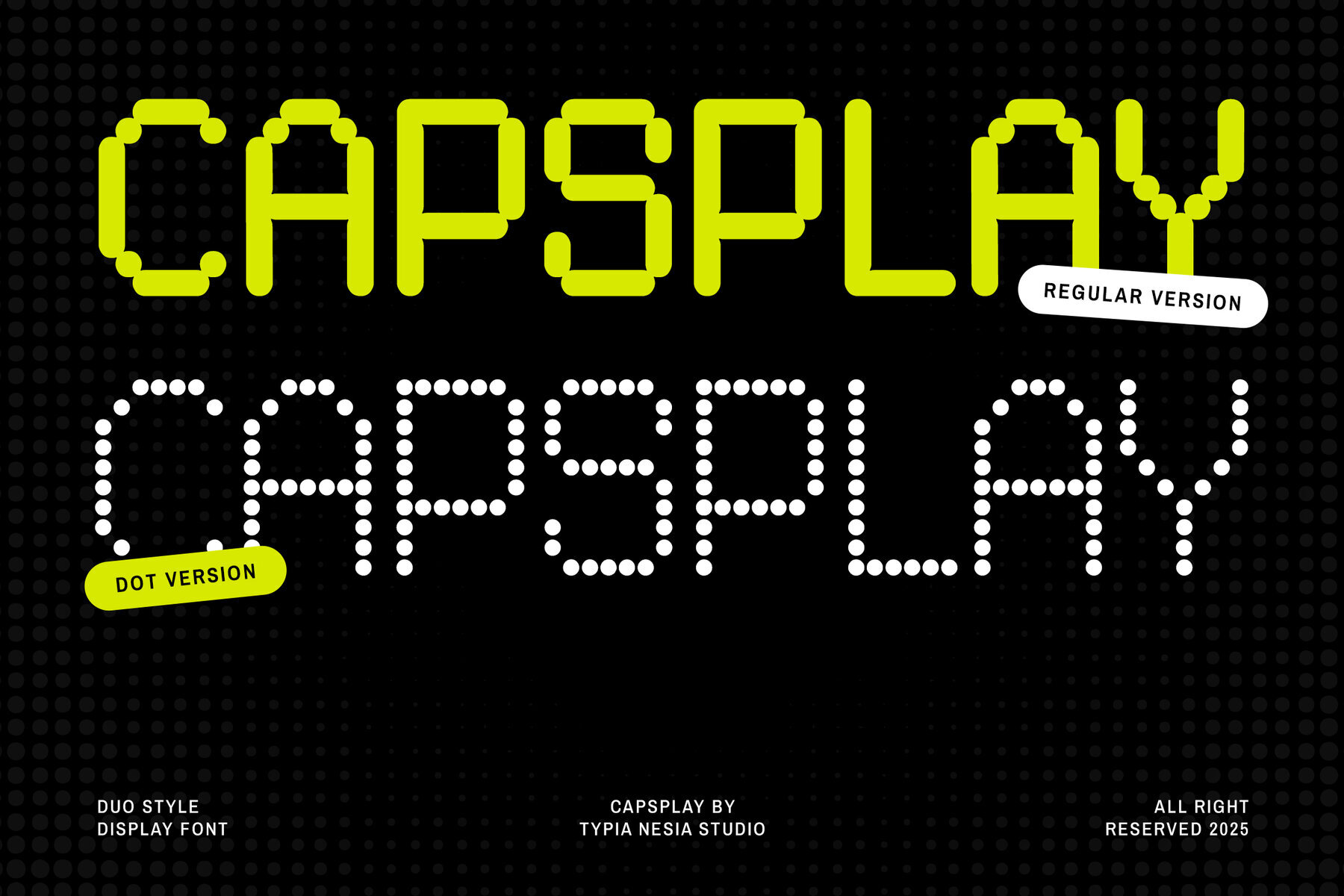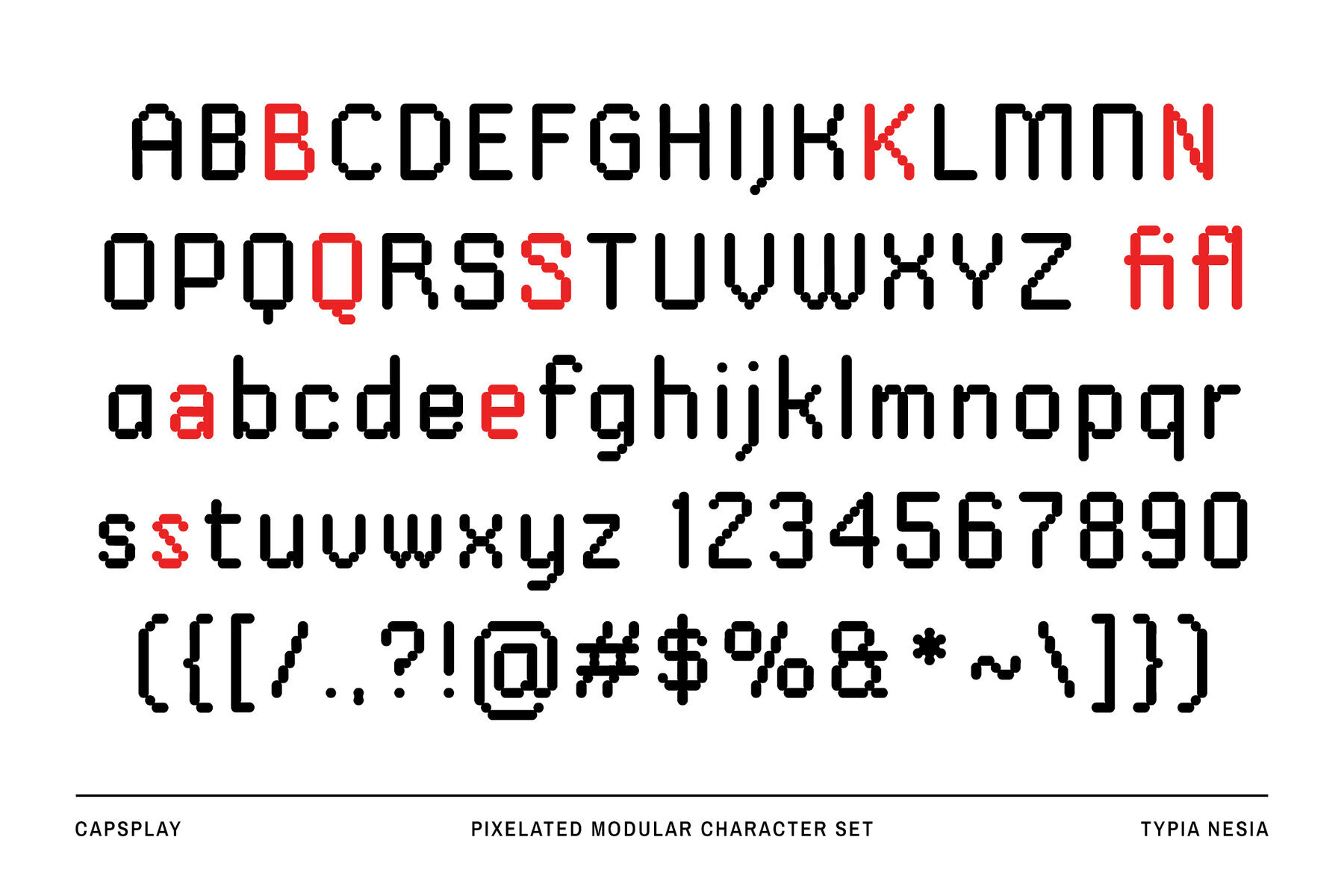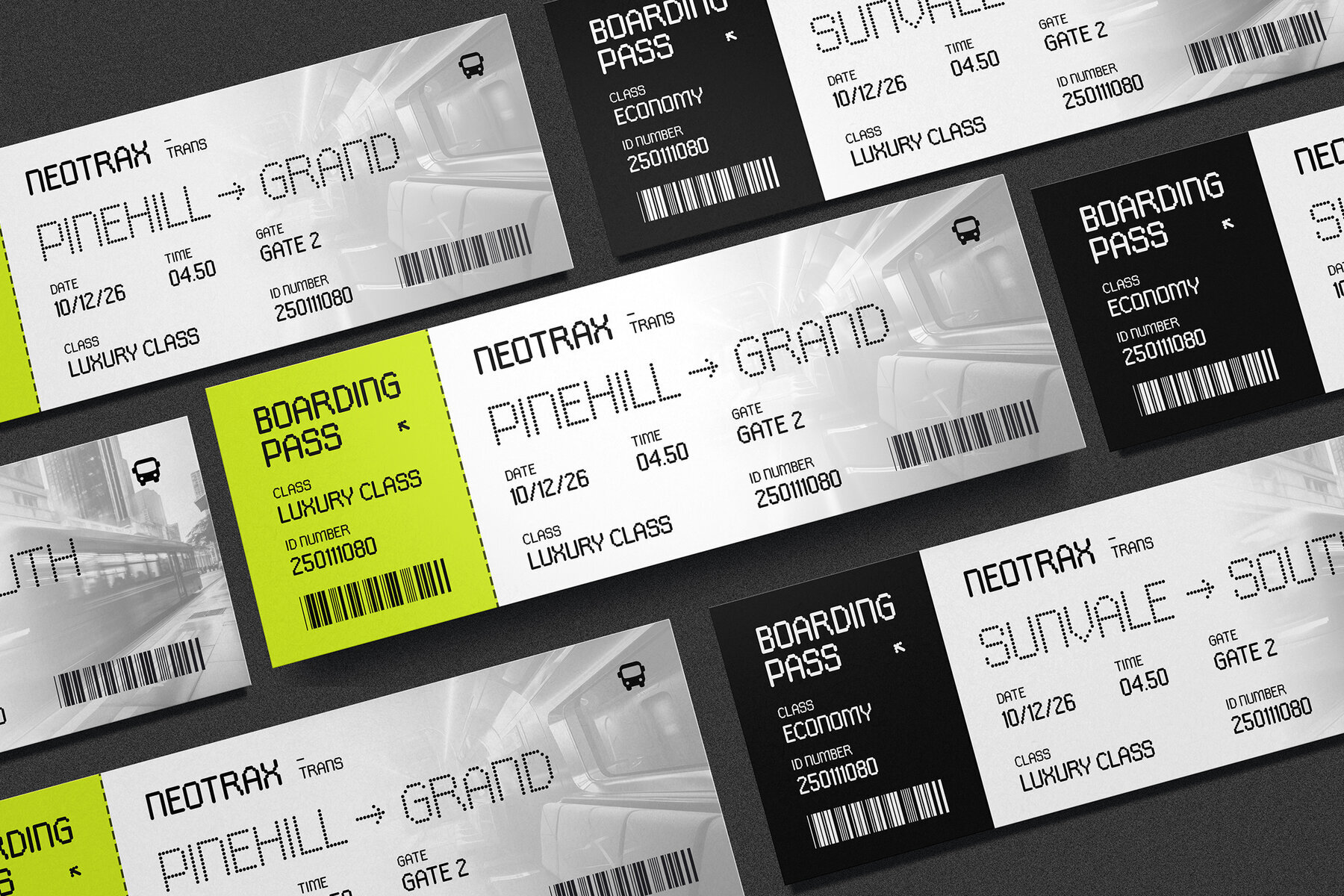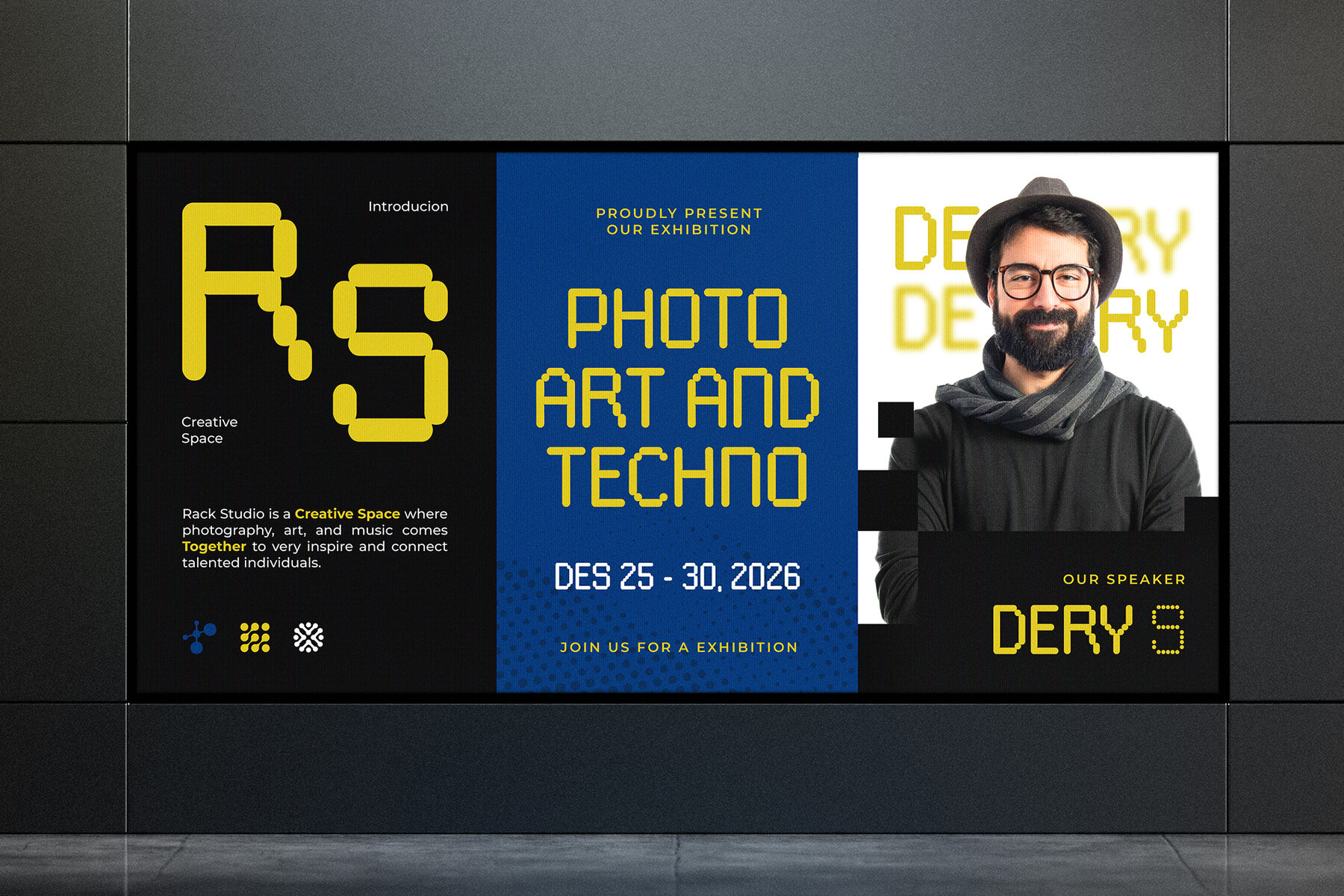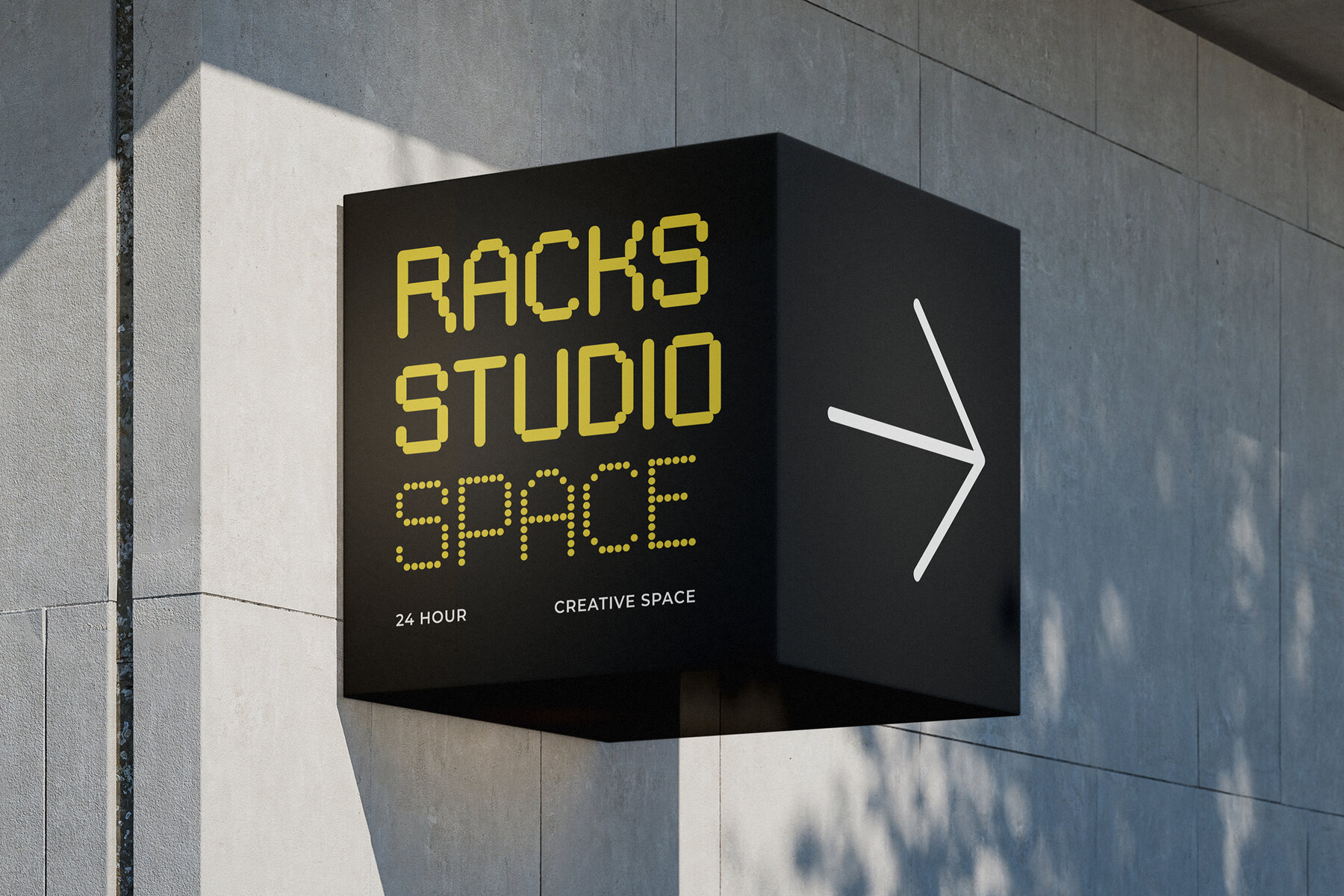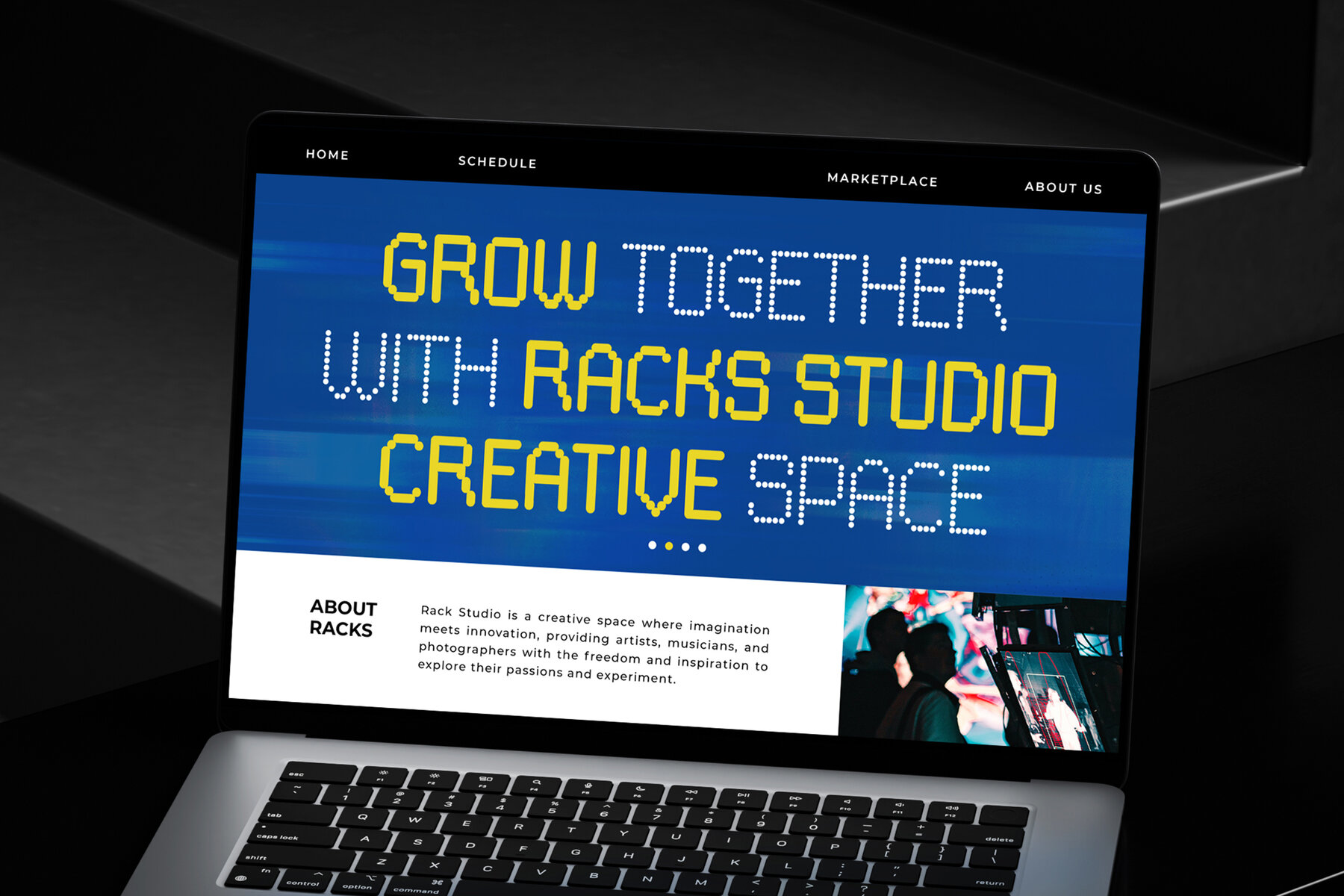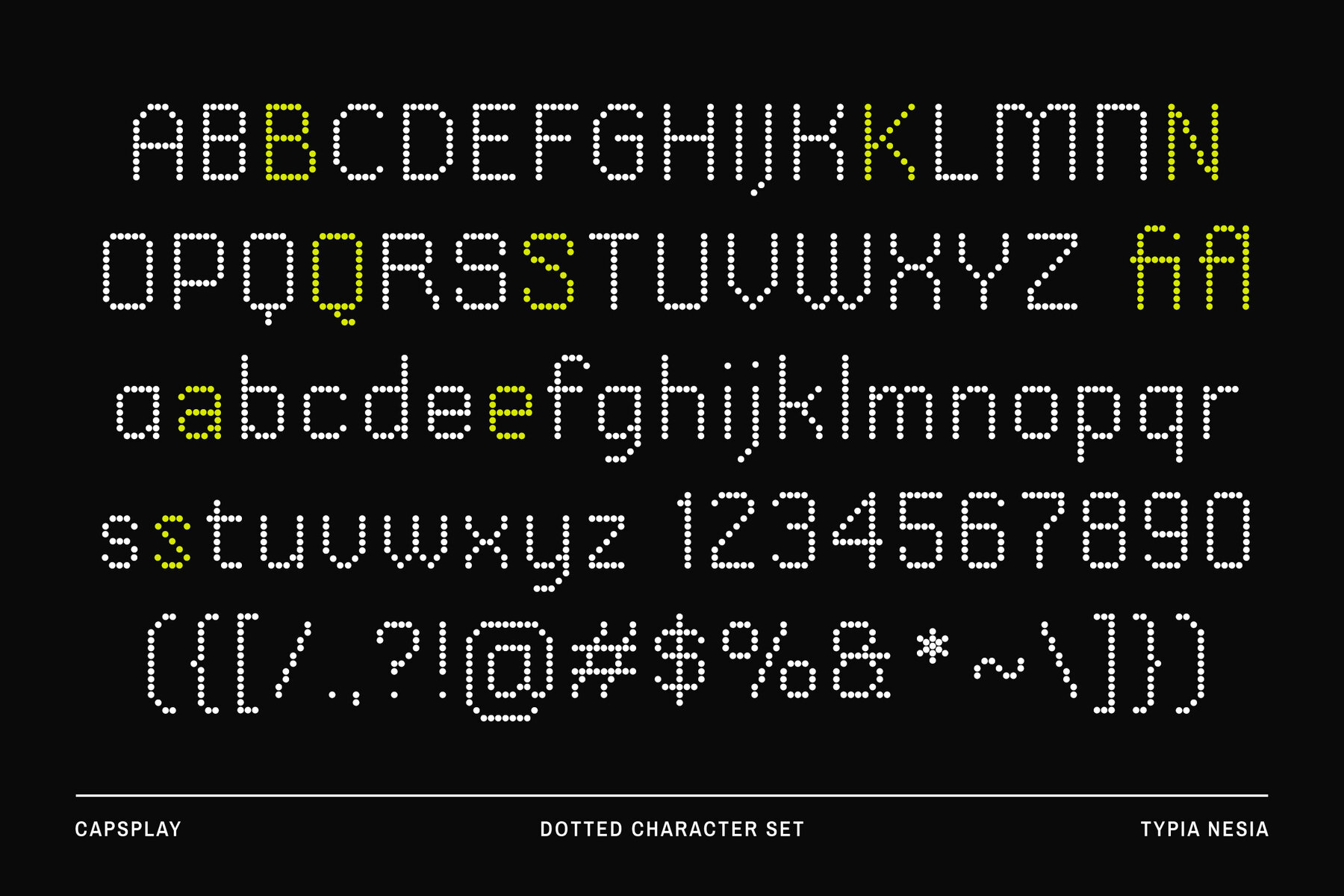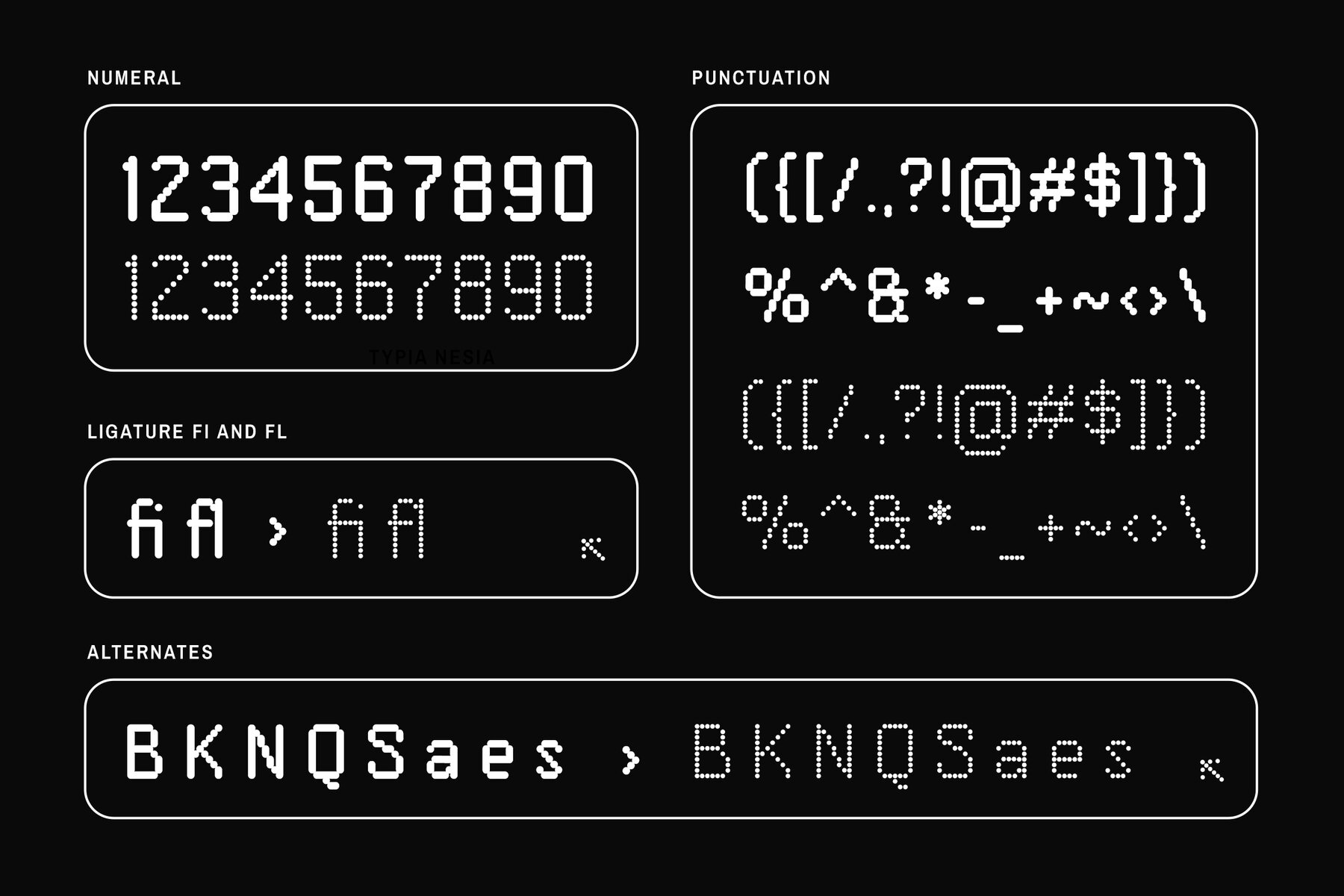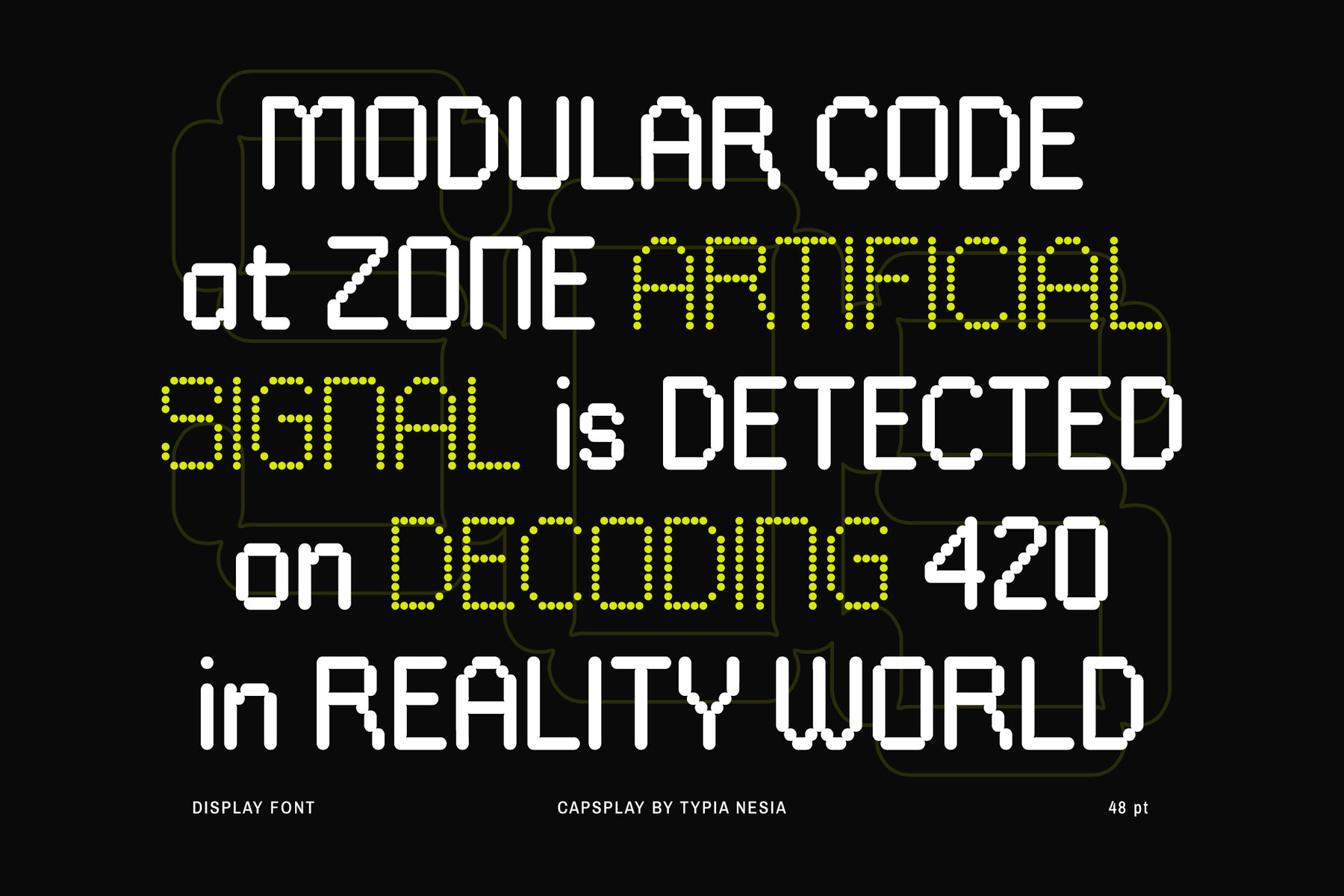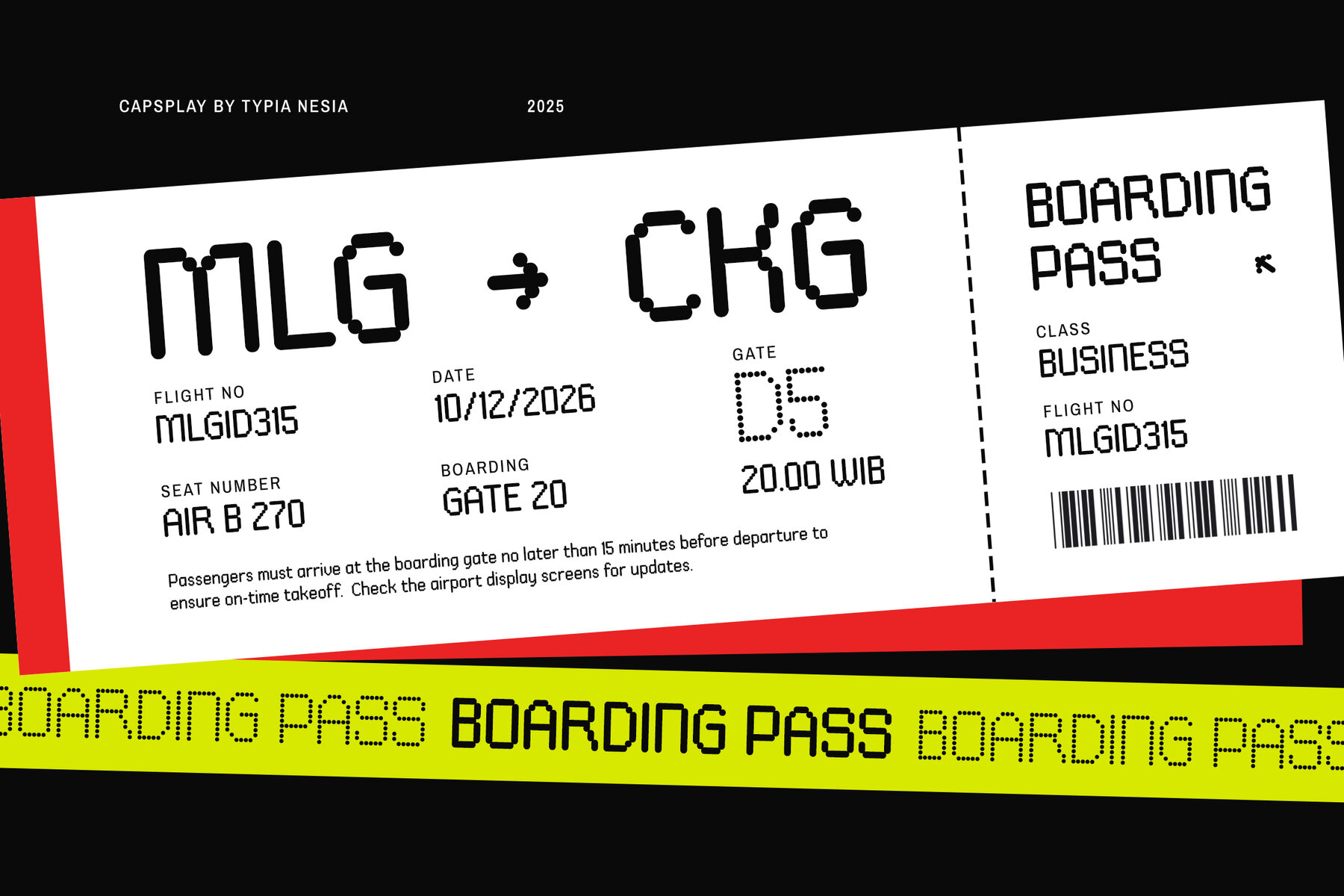
Capsplay Font
Capsplay Regular
Capsplay Dot
Capsplay offers a unique typographic blend, embodying the charm of pixelated designs and the precision of contemporary modular fonts. Its dual-style composition features two exclusive versions: a regular, bold structure and a creatively dotted variation. Capsplay's comprehensive character set, complete with ligatures and alternates, empowers designers with the flexibility to craft distinct and dynamic visuals. Each letterform is structured yet bold, making it suitable for capturing attention with a sleek, high-tech style.Capsplay: Pixel Art Meets Modern Typography
Versatile Design Inspirations